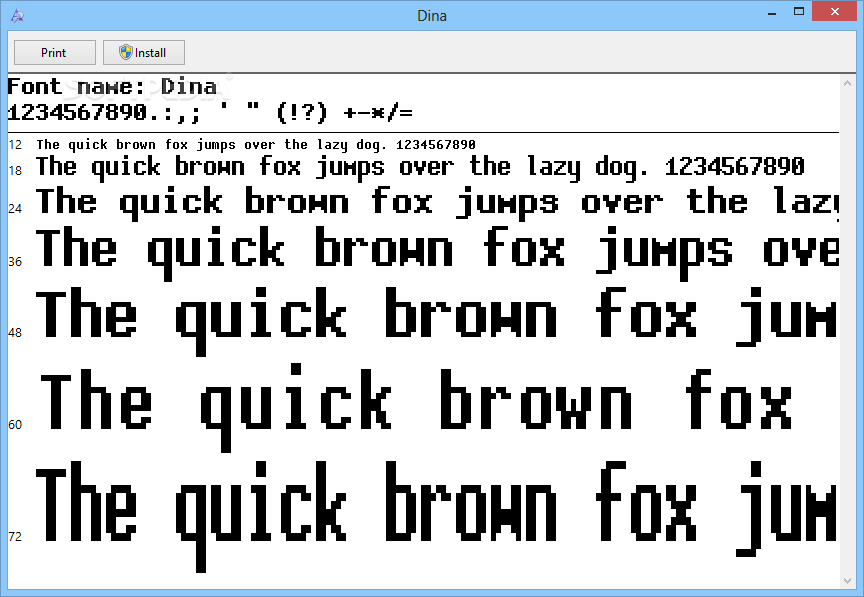
Dina Programming Font Description
Dina is a monospace bitmap font, primarily aimed at programmers. It is relatively compact to allow a lot of code on screen, while (hopefully) clear enough to remain readable even at high resolutions.
I made this font after having tried all the free programming fonts I could find. Somehow there was some detail in each of them that meant I couldnt work with them in the long run.
The closest to perfect I found was the Proggy font, which the author kindly allows you to modify. So I started building this font using Proggy as the base, and with inspiration from Tobi, Fixedsys and some old DOS fonts I used to love.
This version is the result of intense testing and tweaking, and I am quite happy with it now.